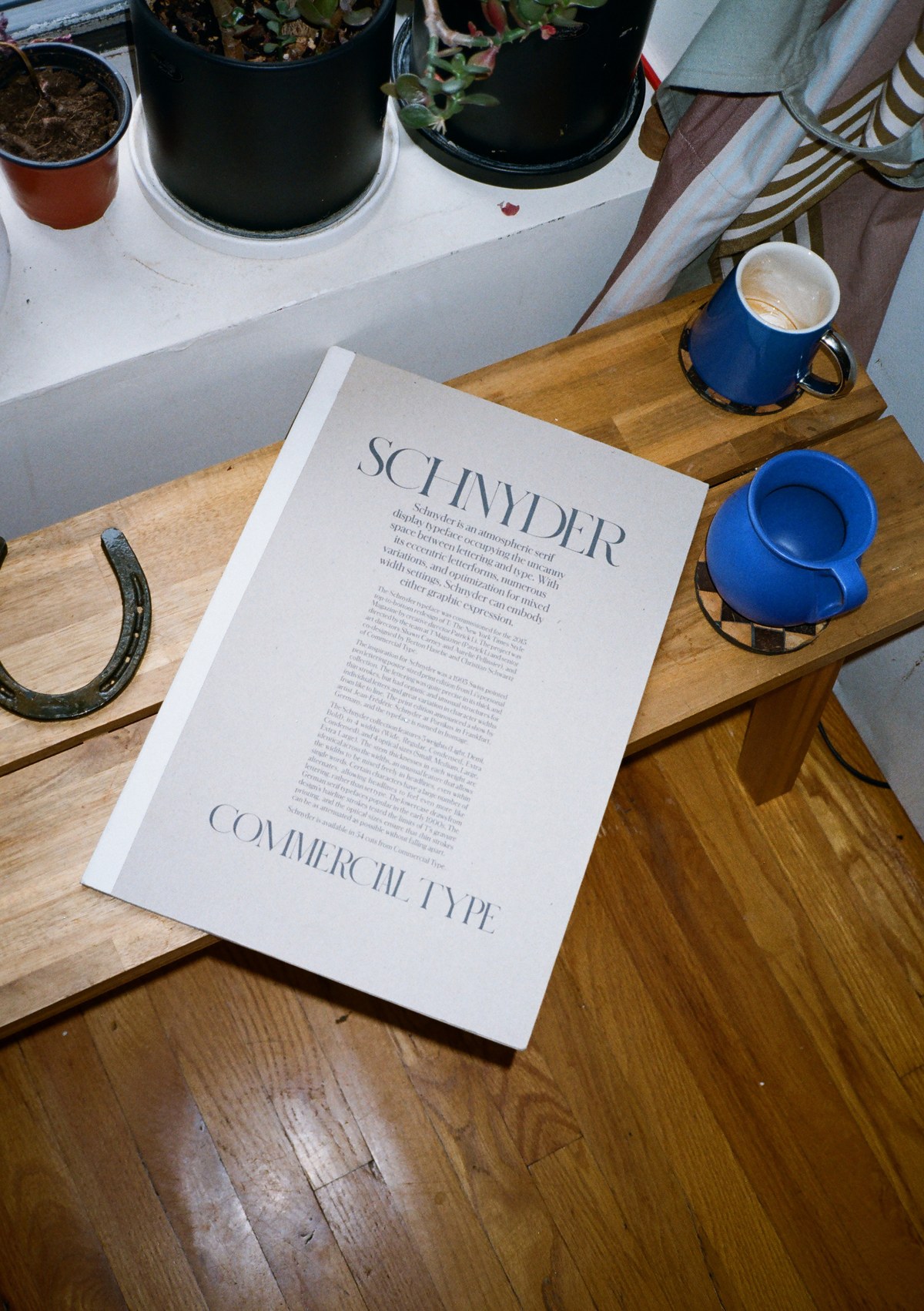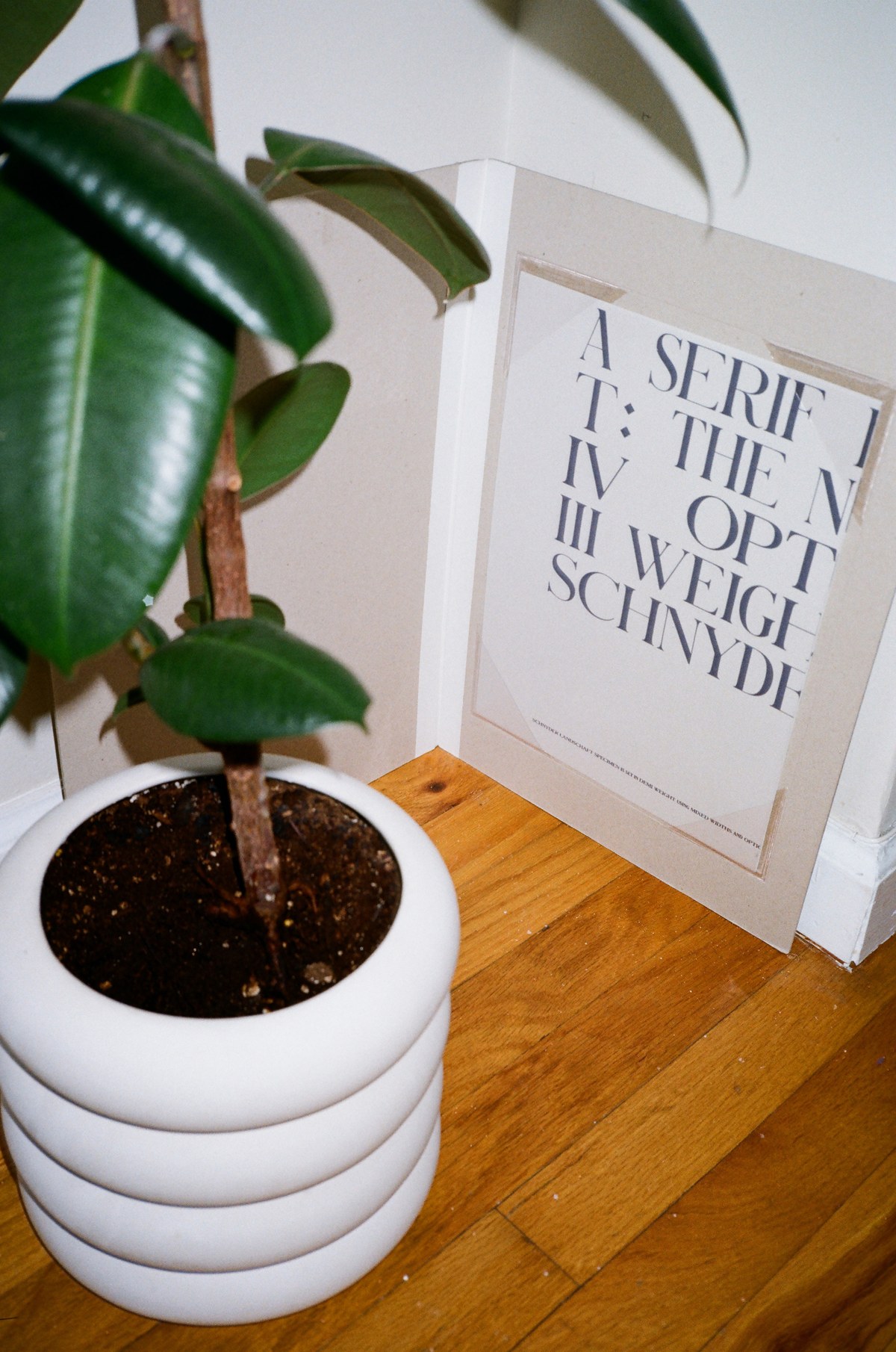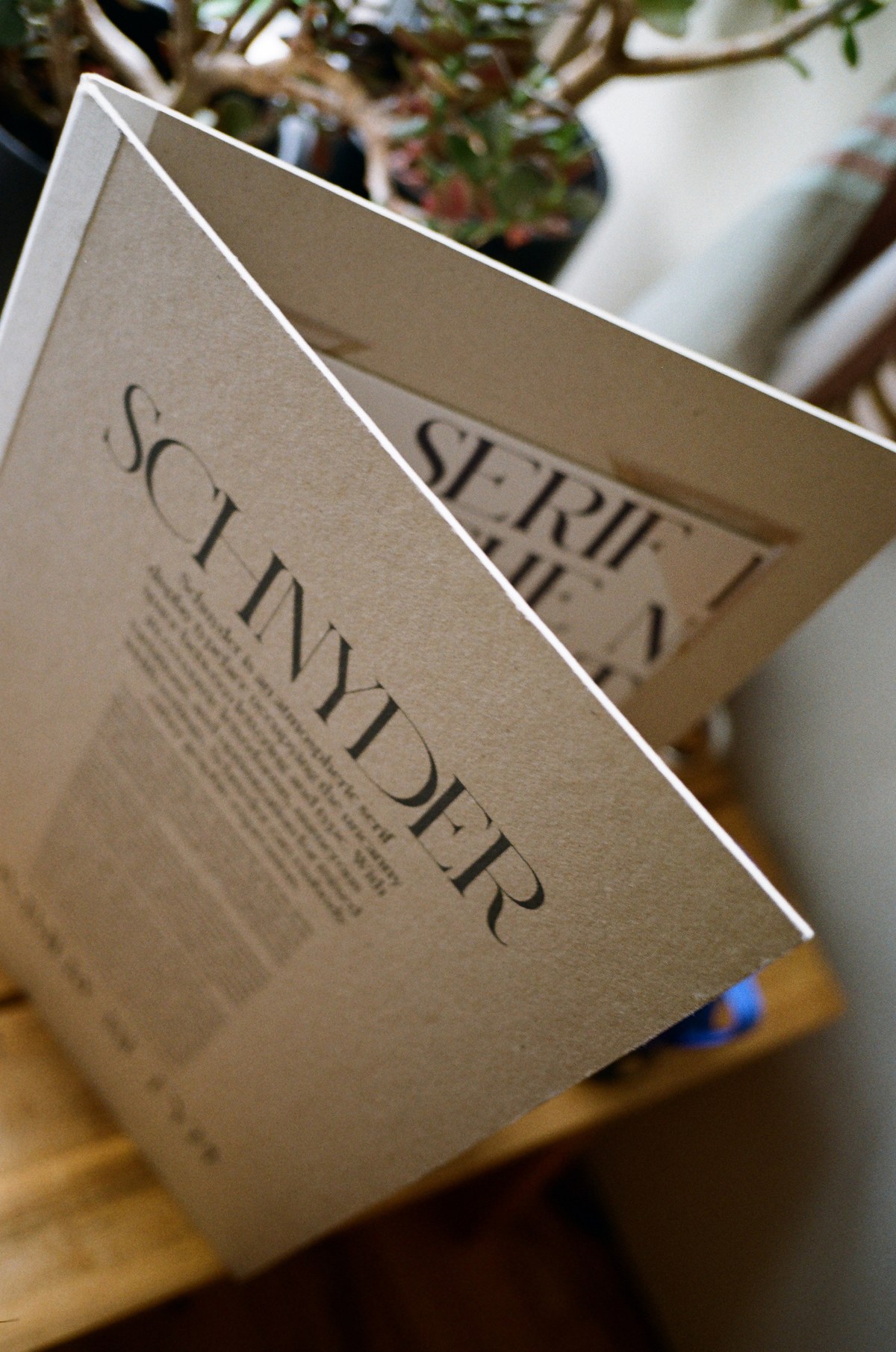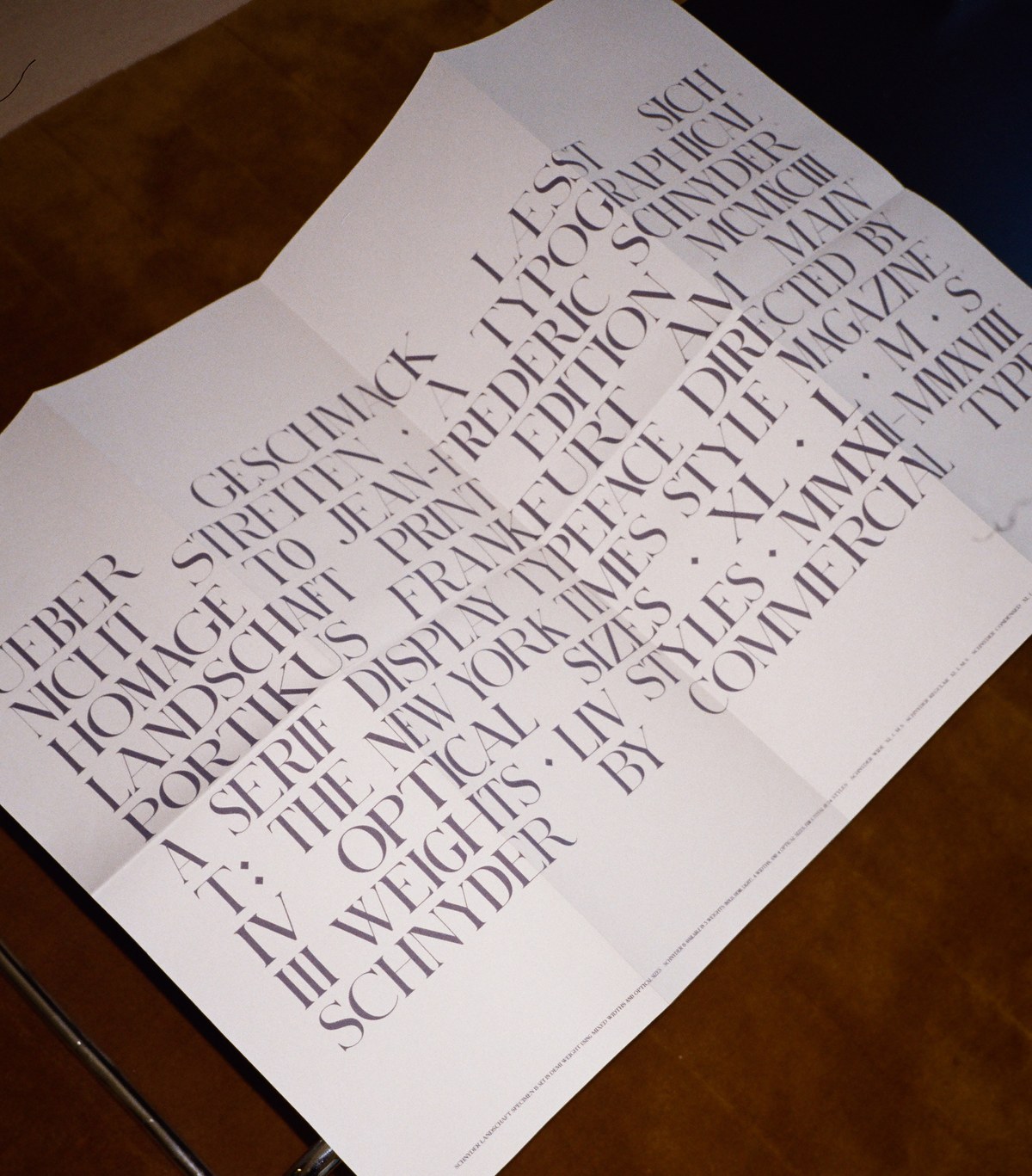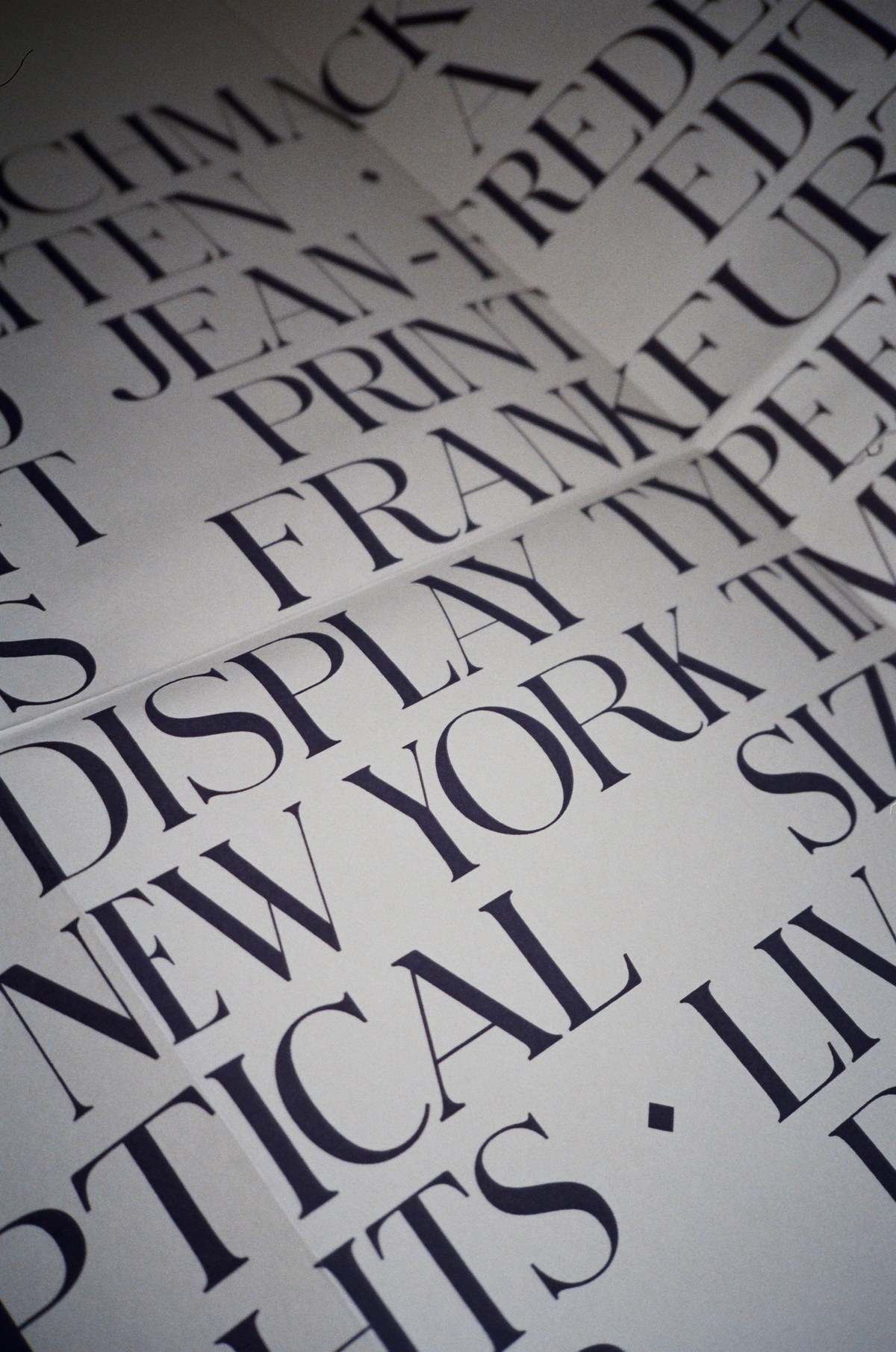
Patrick Li and his team at Li, Inc. have designed a limited edition poster and folder to celebrate the release of Schnyder, a display typeface originally commissioned by Li in his role as creative director at T, the New York Times Style Magazine. Both the poster and the enclosing folder are silkscreened in a deep violet. The poster is a soft grey Sirio paper, and the folder is a sturdy chipboard, with photo corners to hold the folded poster in place. The poster is an homage to the invitation lettered by Swiss artist Jean-Frédéric Schnyder that had served as one point of inspiration for the typeface.
Designed by Li, Inc.
Silkscreened in 1 color